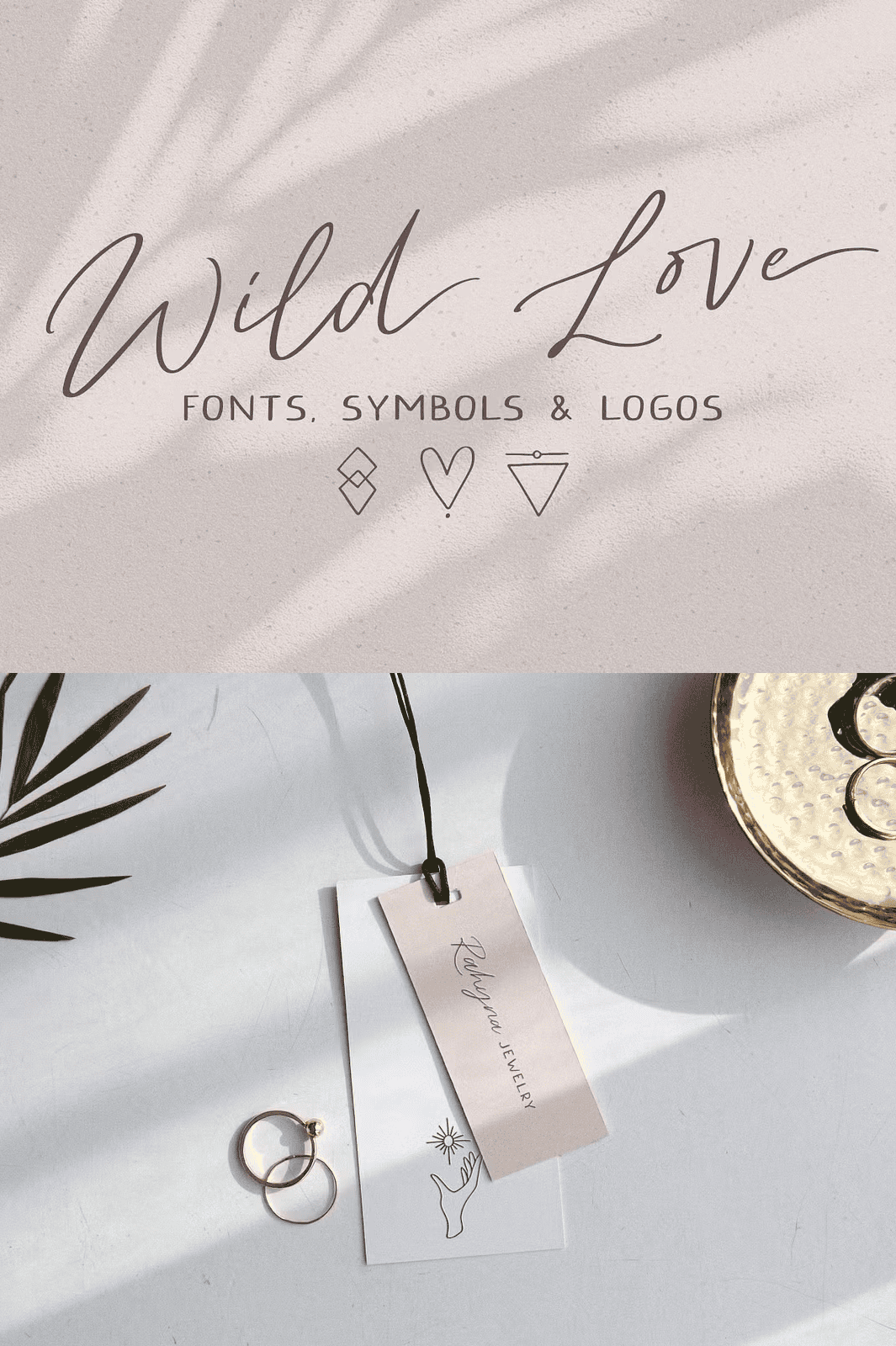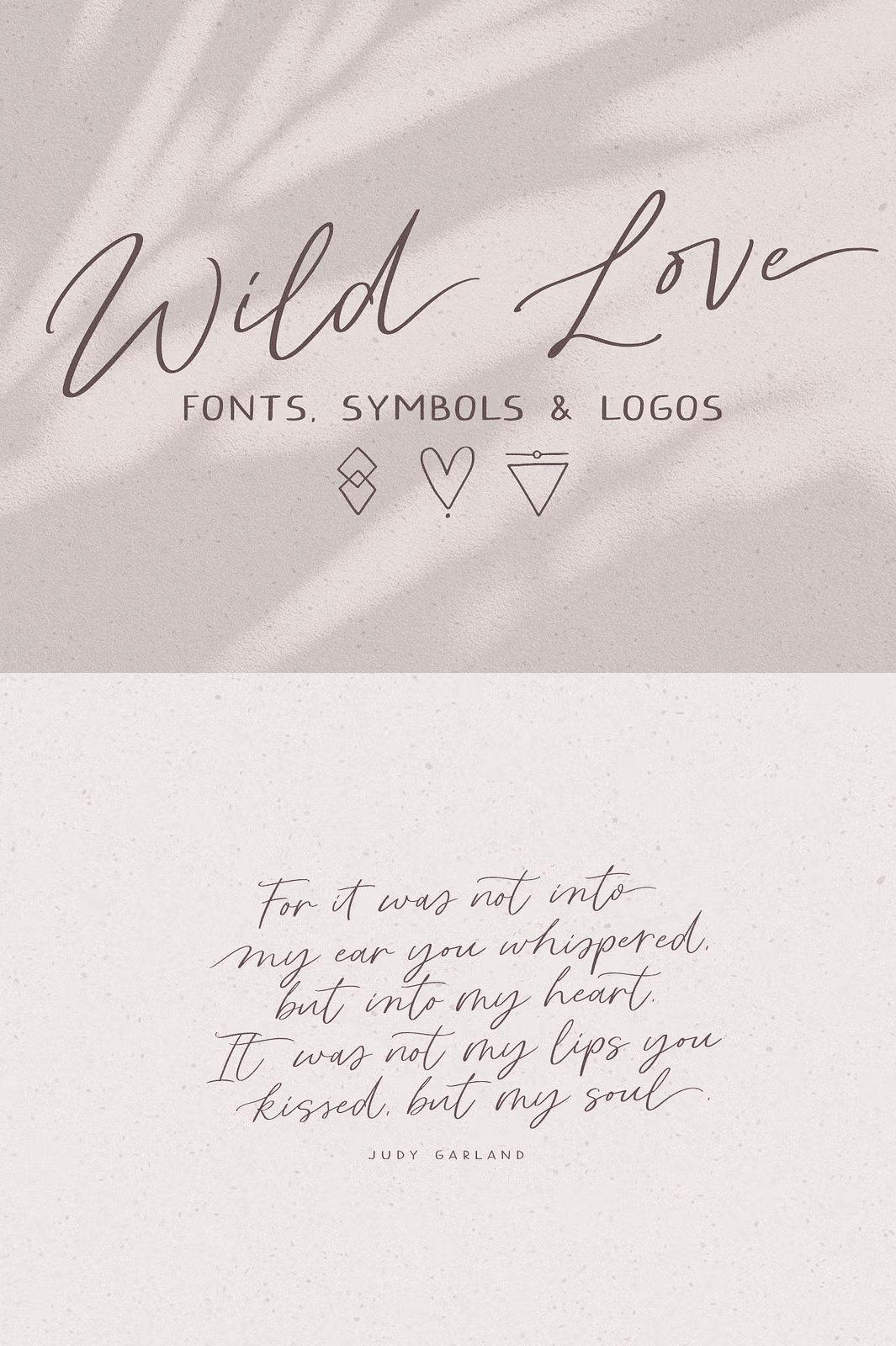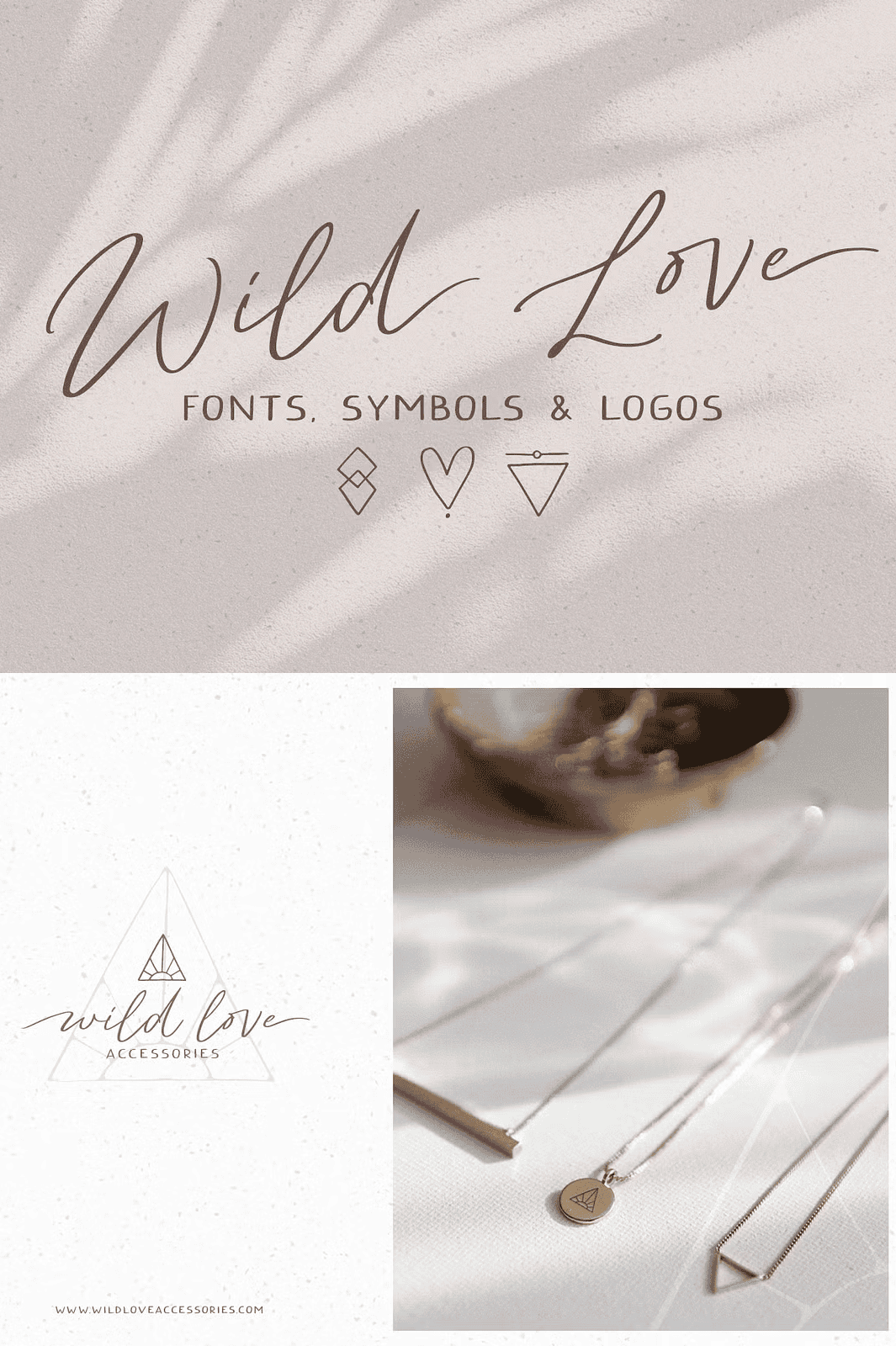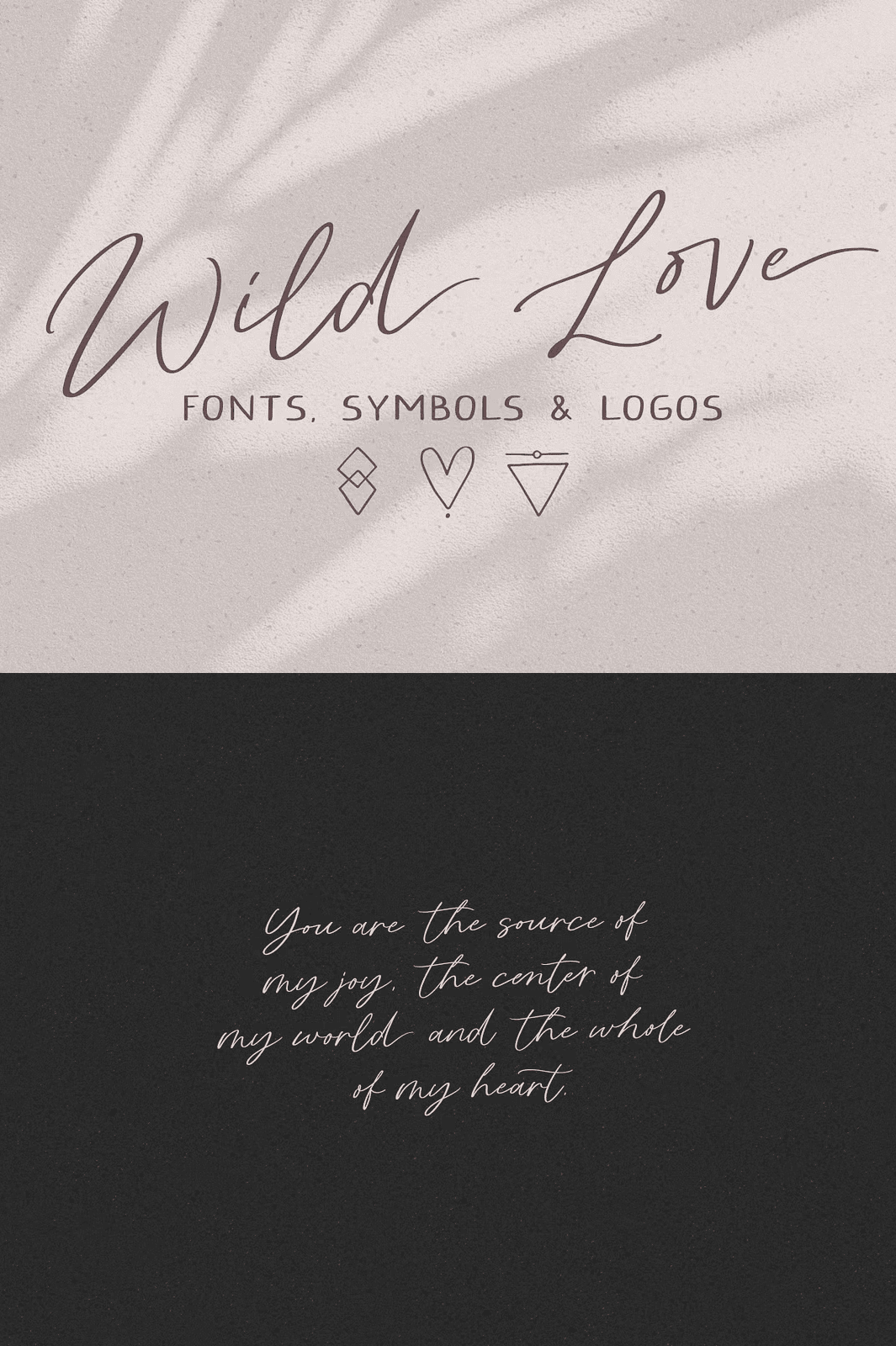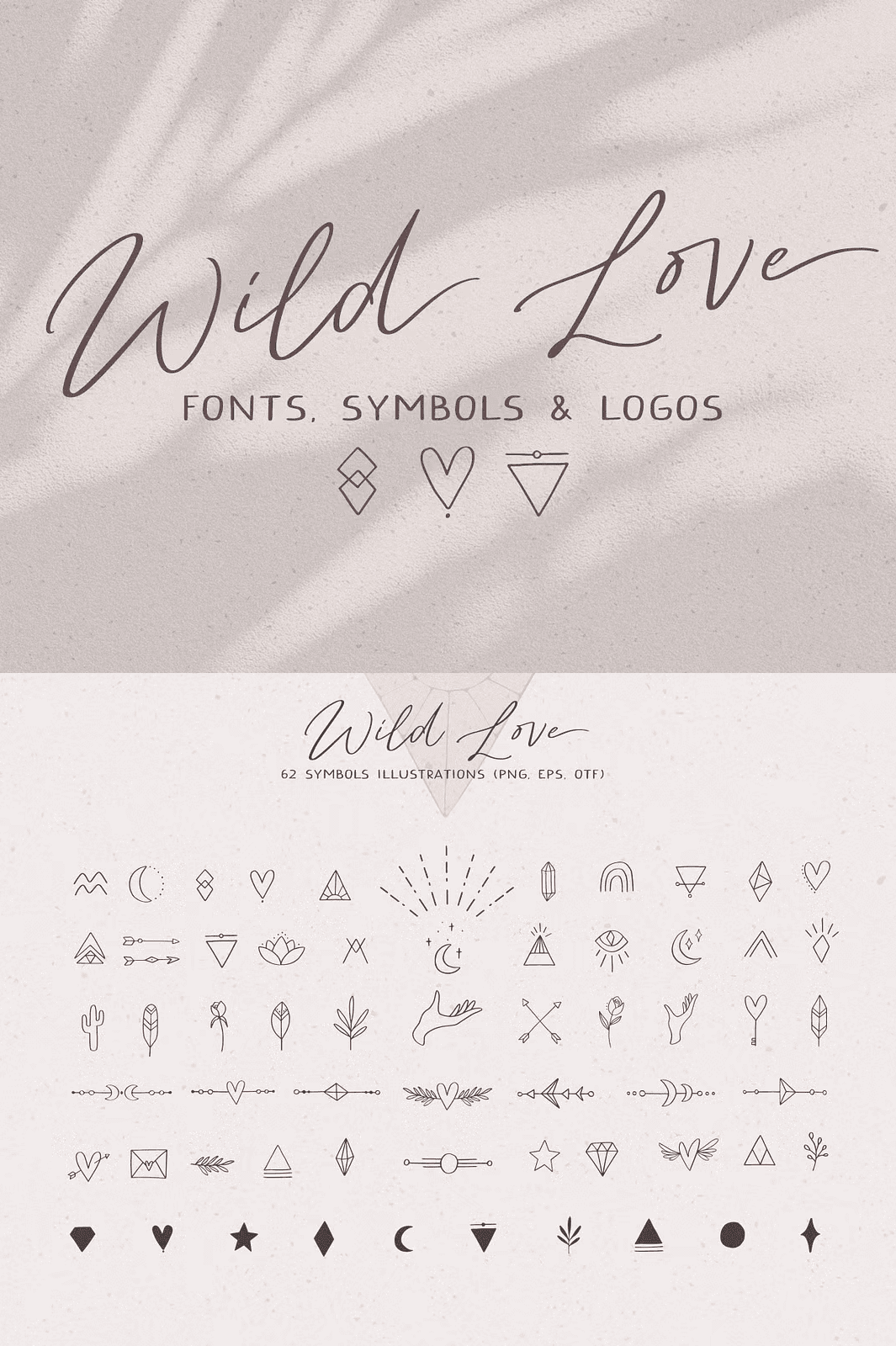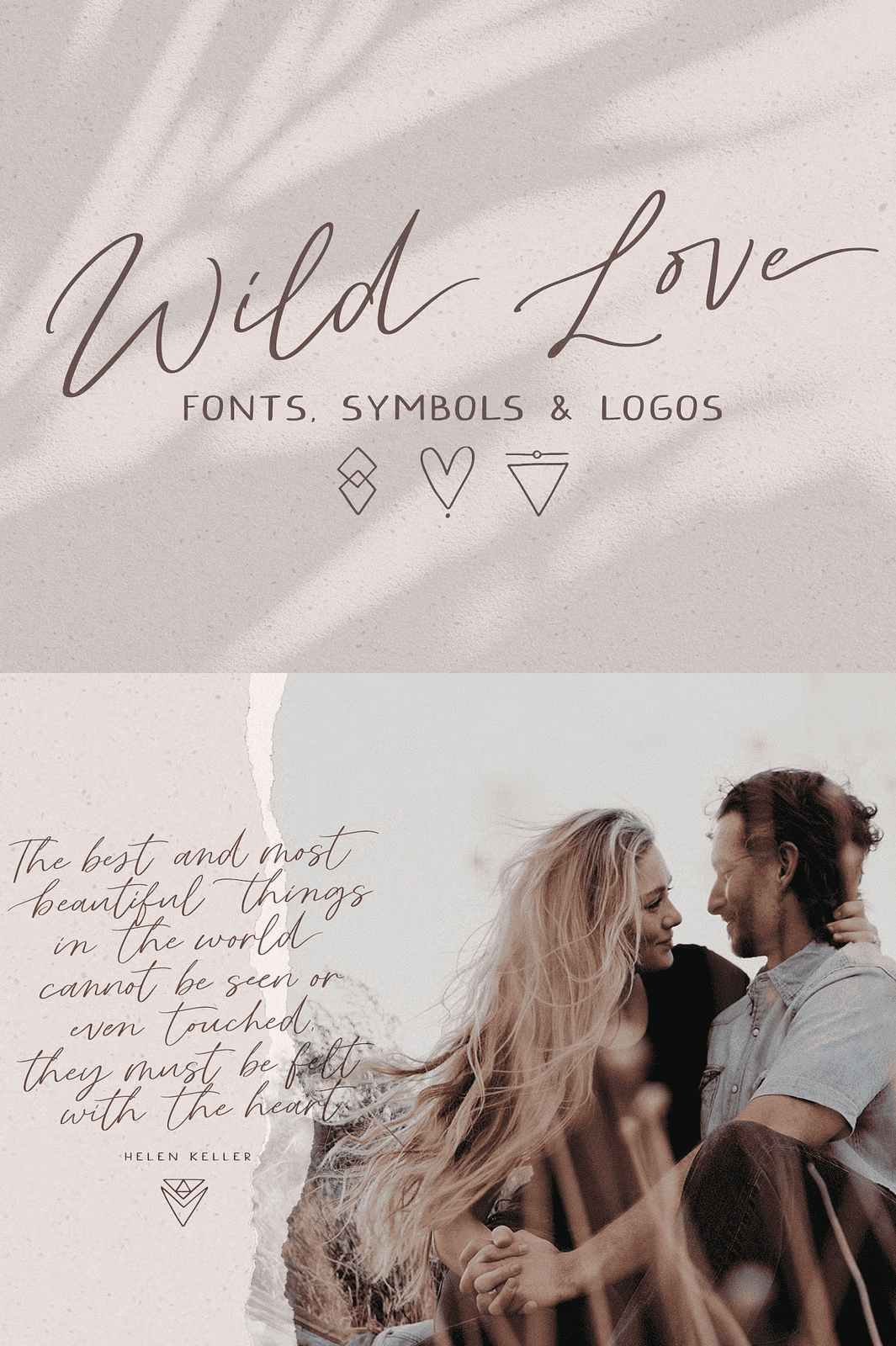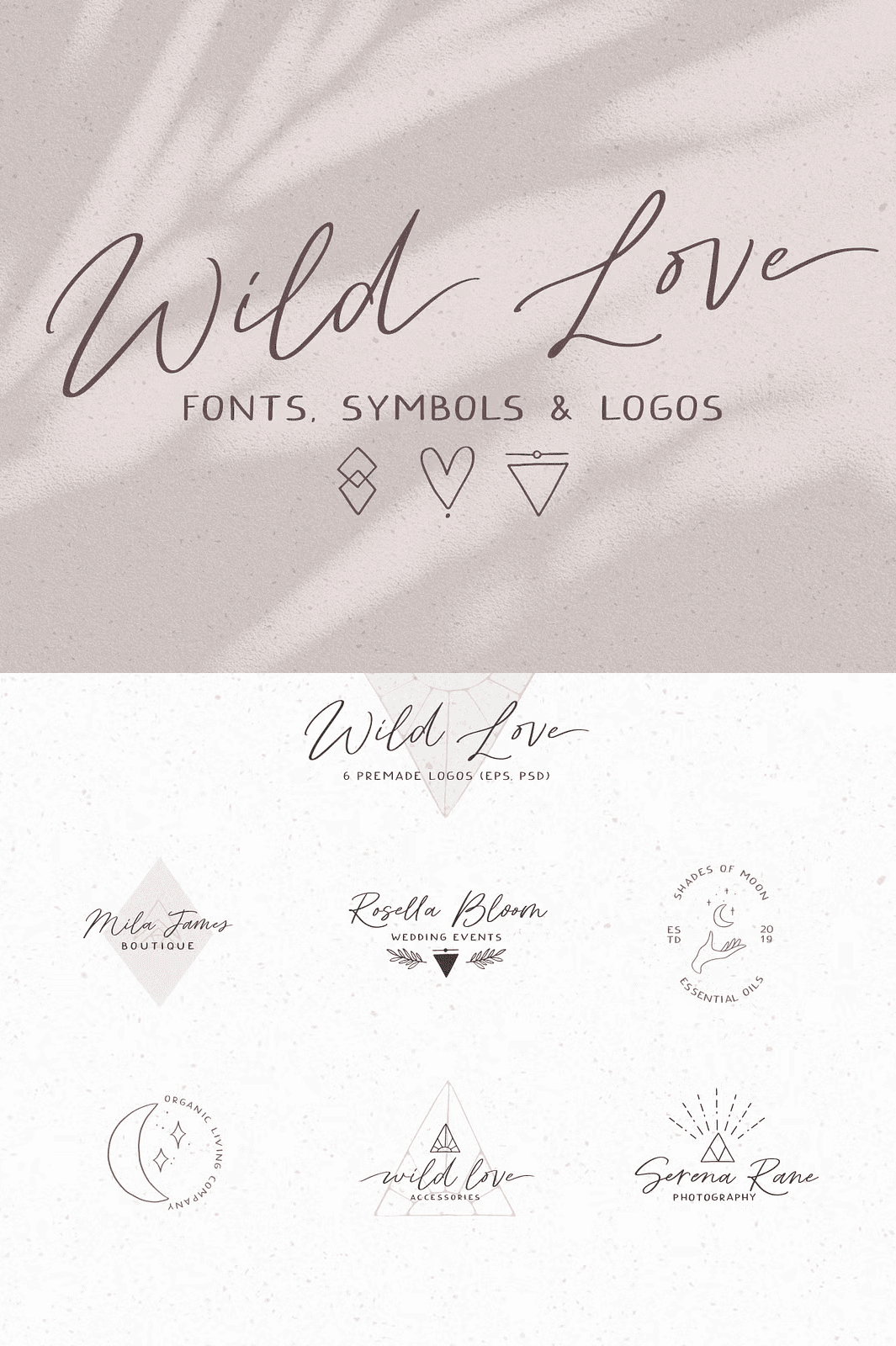
Introducing Wild Love: A Versatile Script Font Collection for Creative Projects
Are you searching for a beautiful and versatile script font to elevate your creative designs? Look no further. Wild Love is an amazing font collection that combines elegance, functionality, and artistic charm in one complete package. This extraordinary collection offers two stylish fonts, a rich set of hand-drawn symbols, multiple premade logos, and textures designed to streamline your creative process and bring your projects to life.
What Makes Wild Love Font Collection So Special?
The Wild Love collection is designed for designers who want to create captivating Instagram quotes, romantic wedding invitations, beautiful websites, and more. Each element in this set is meticulously crafted to work seamlessly together, ensuring your designs radiate professionalism and charm.
Included Fonts and Design Assets
• WILD LOVE SCRIPT (OTF, WOFF): A beautifully crafted script font featuring 67 ligatures for smooth, natural hand-lettered style. It also comes with 52 alternate beginning and ending swashes for all lowercase characters, enhancing your typography with elegant flourishes.
• WILD LOVE SANS (OTF, WOFF): A complementary all-caps sans serif font that balances the script with modern, clean letterforms—perfect for headlines, subtitles, or branding elements.
• WILD LOVE SYMBOLS (OTF, WOFF, PNG, EPS): This extensive symbol font set includes 62 hand-drawn illustrations that add a unique decorative touch to your projects. You can type symbols directly using the font or use the included PNG and vector EPS files for maximum creative freedom.